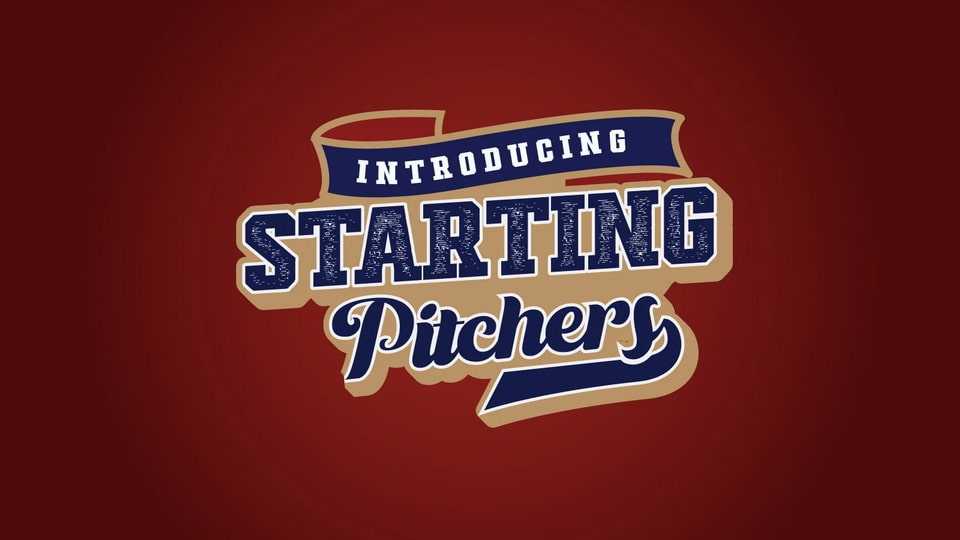
Download Starting Pitchers font, a condensed sport inspired typeface. Starting Pitchers is bold, vibrant with sharp sans serifs and competitive appearance, therefore excellent to use for headers, logos, captions and posters, especially for the sports branding industry.
Designer: Trequartista Studio